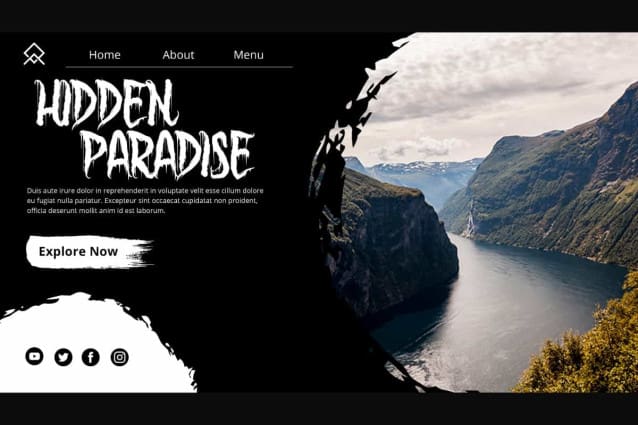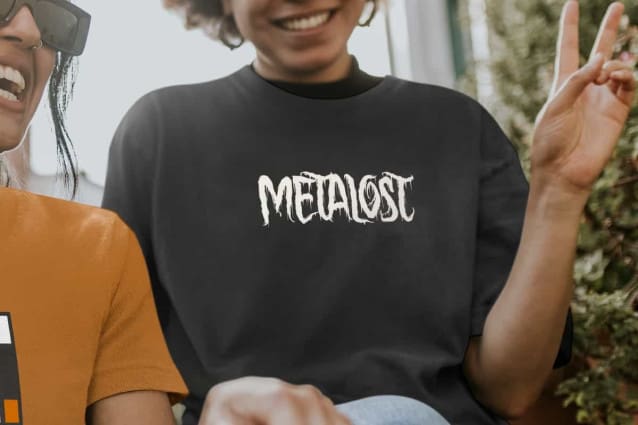
Metalost Display Font
Metalost Display Font is a grunge scary display font with unique look. This font is made with a black metal concept to support the appearance of your design to be very cool. It will be perfect for any designs, such as brand image, cover, custom design, invitation, label, marketing material, menu, poster, product packaging, quote, signage, stationery, web, and many more!
Metalost Display Font includes full set of ALL CAPS for Uppercase and Lowercase Basic Characters, Numerals, Punctuation, and Symbol. The characters of this font will give amazing touch and also a perfect choice for many industries, such as accessories, advertising, art, café, event or festival, fashion, game, movie, photography, printing, publishing, sport, etc.